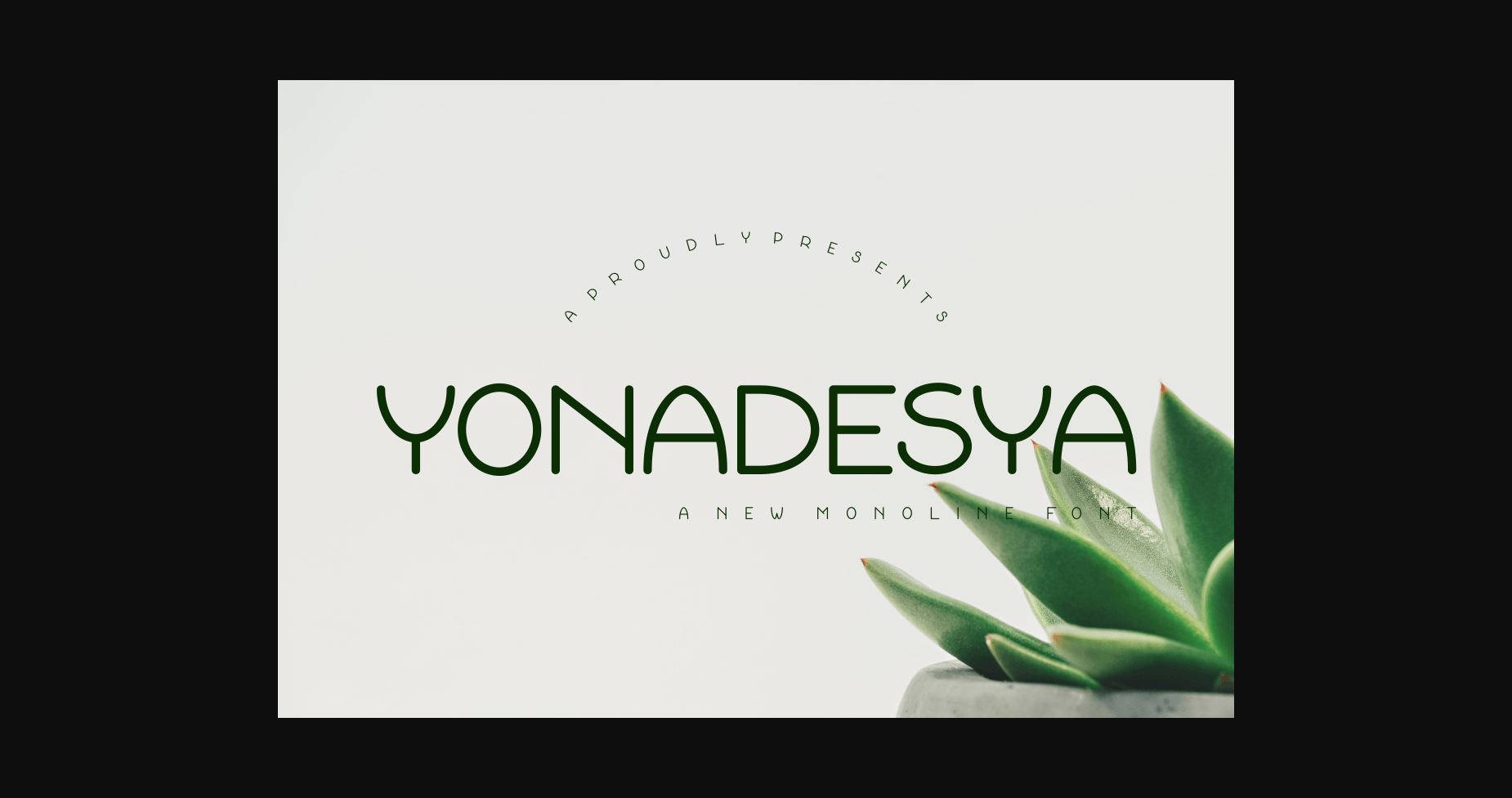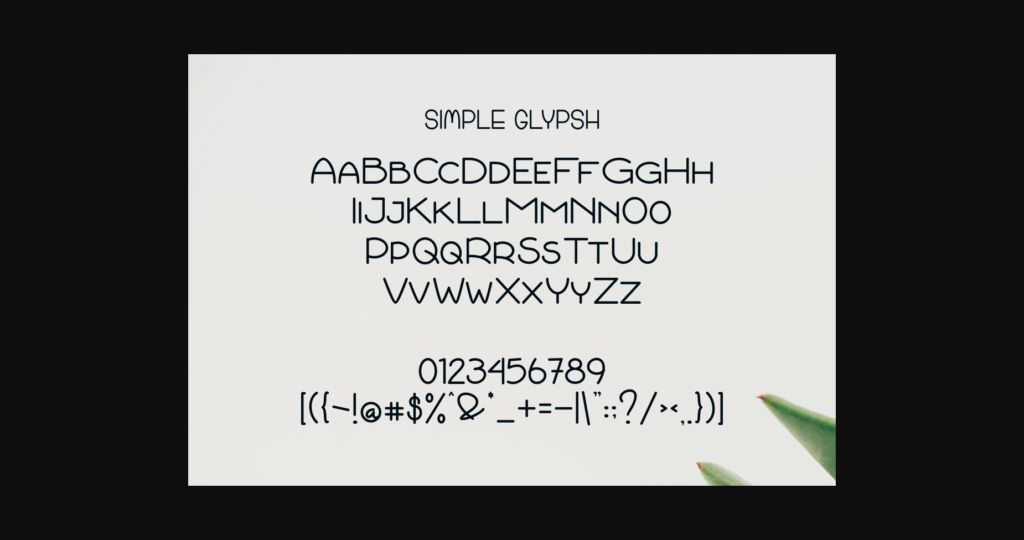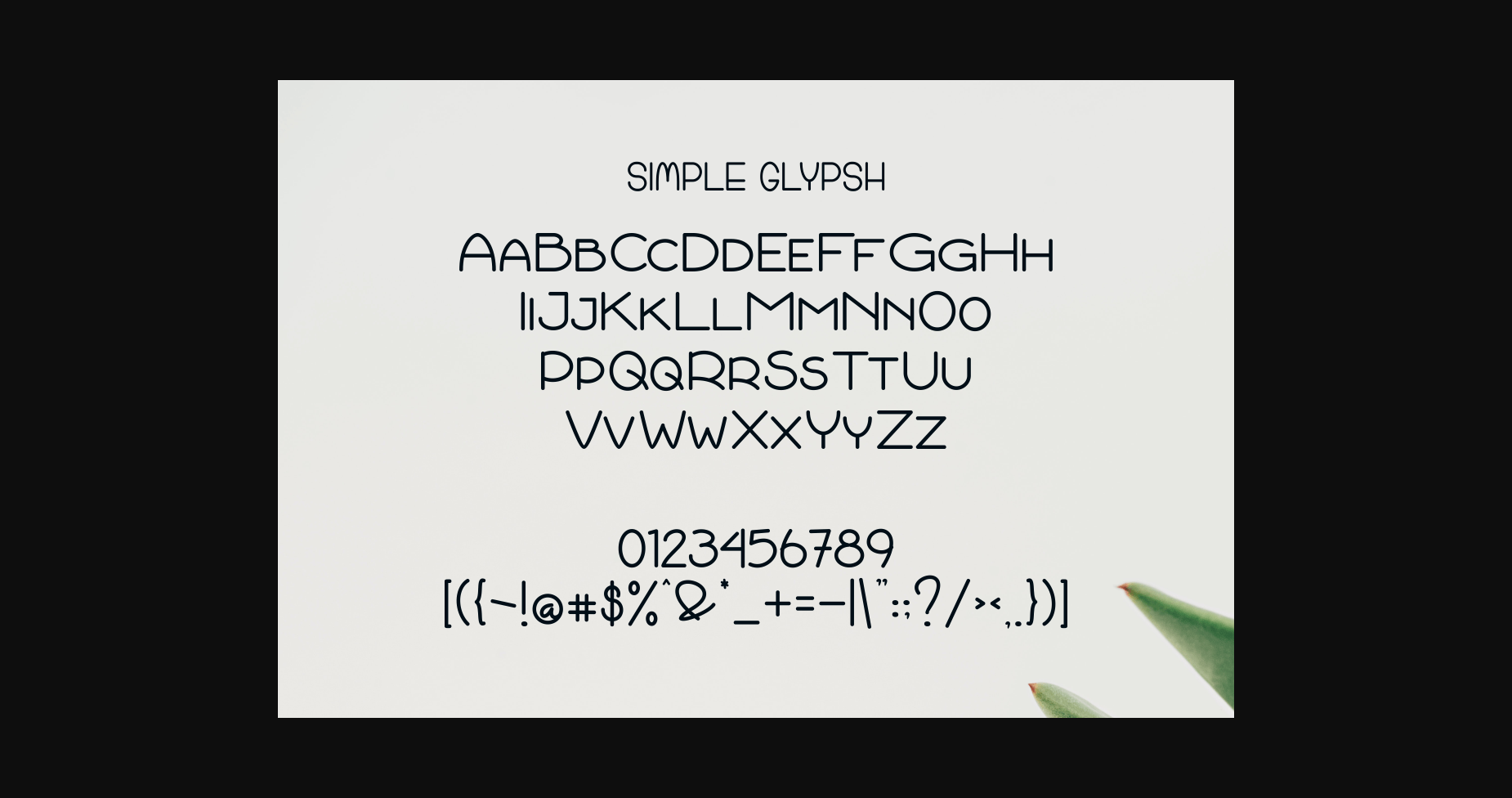
Yonadesya Font
About Yonadesya Font
Yonadesya is a simple and natural sans serif font. It has a casual, yet elegant touch which makes it suitable for a large variety of projects.